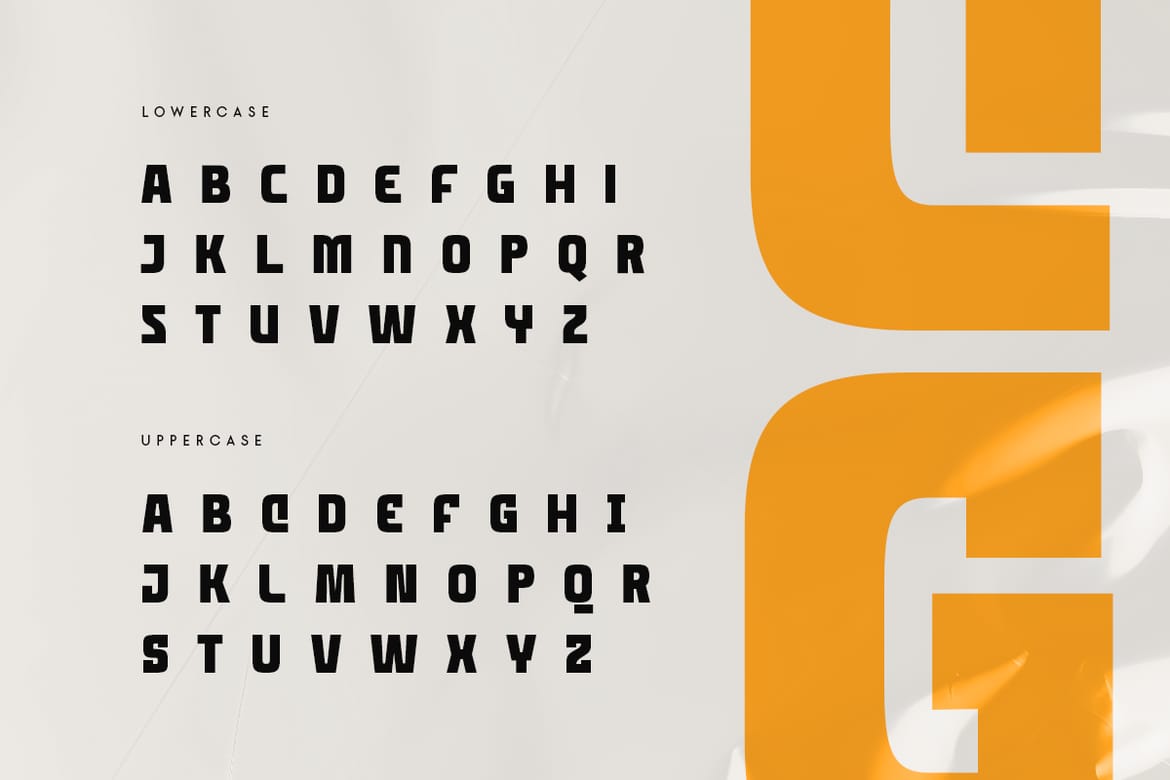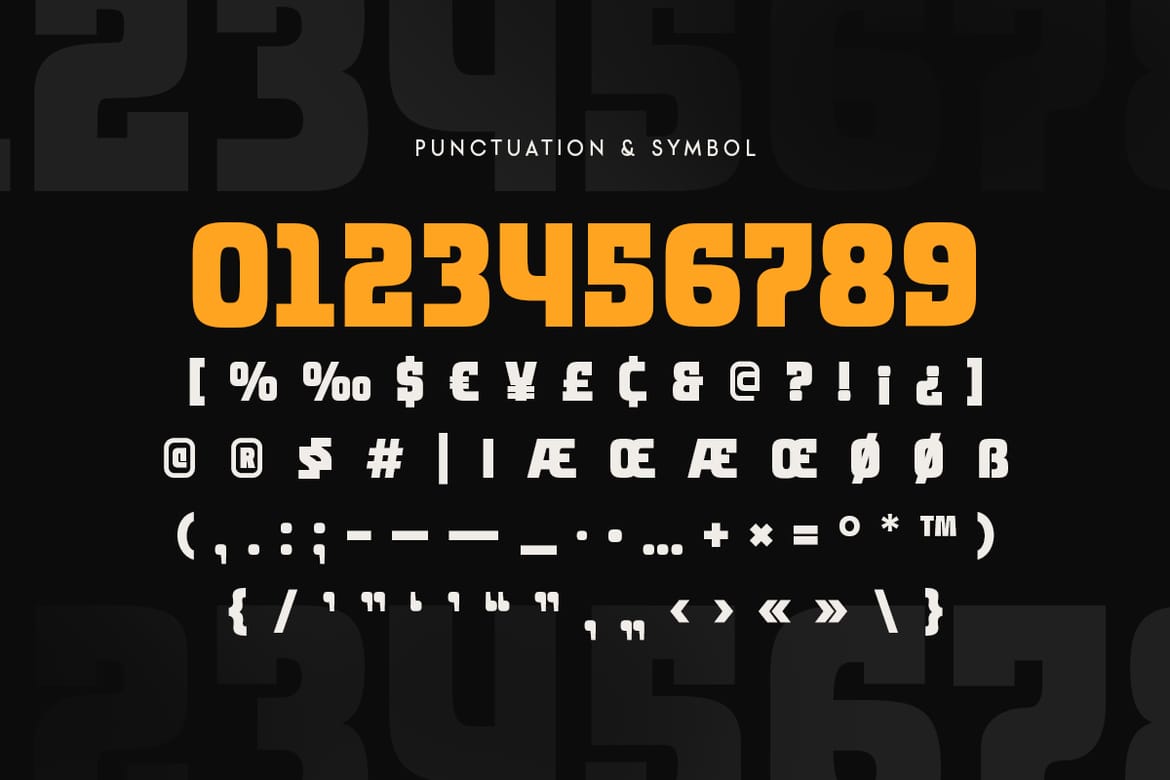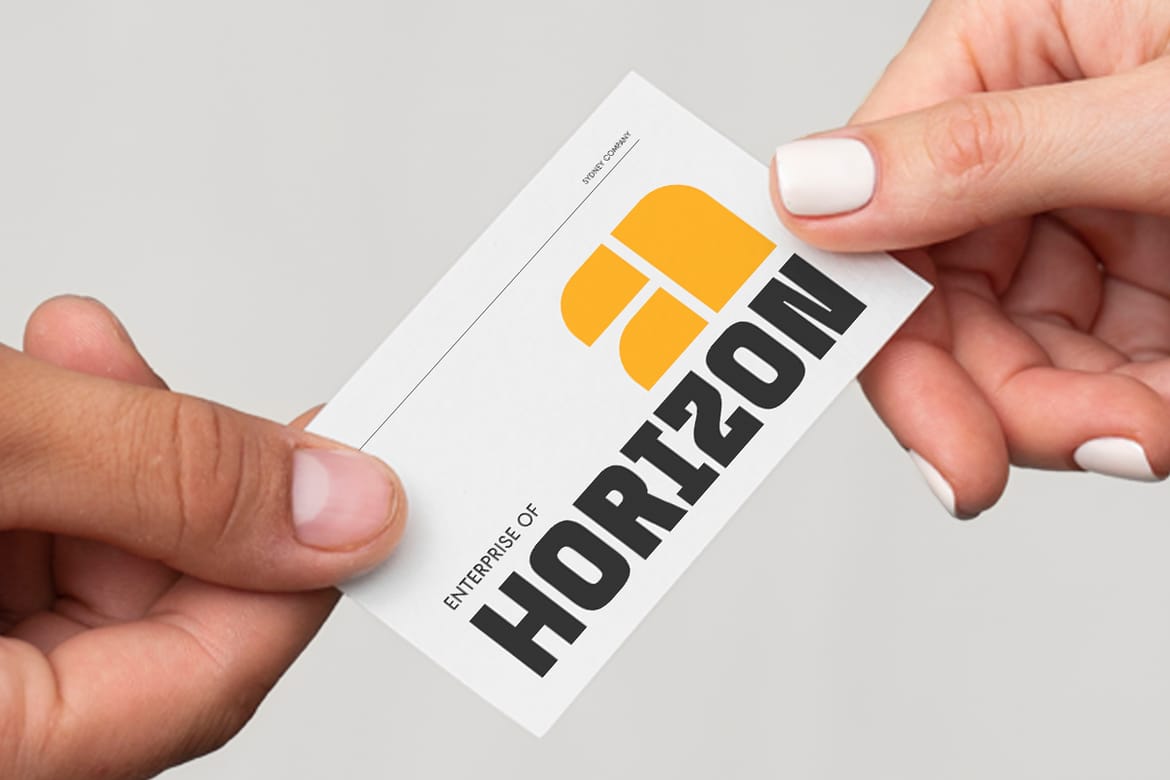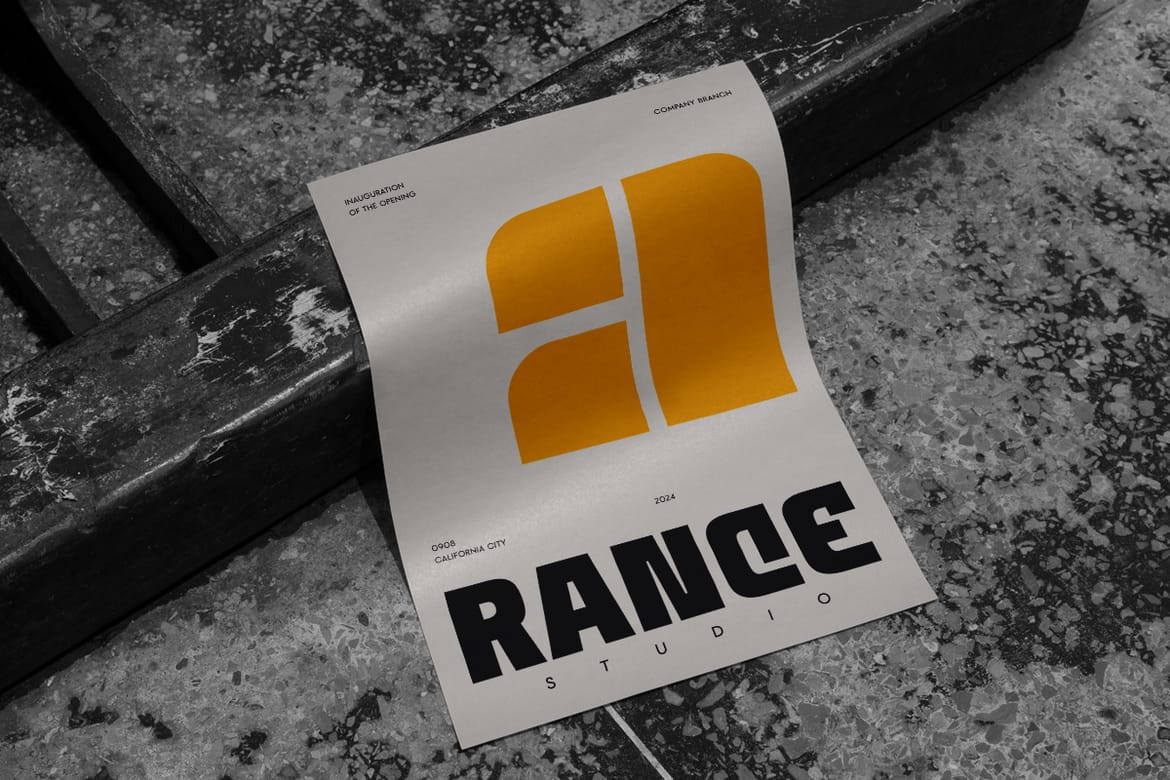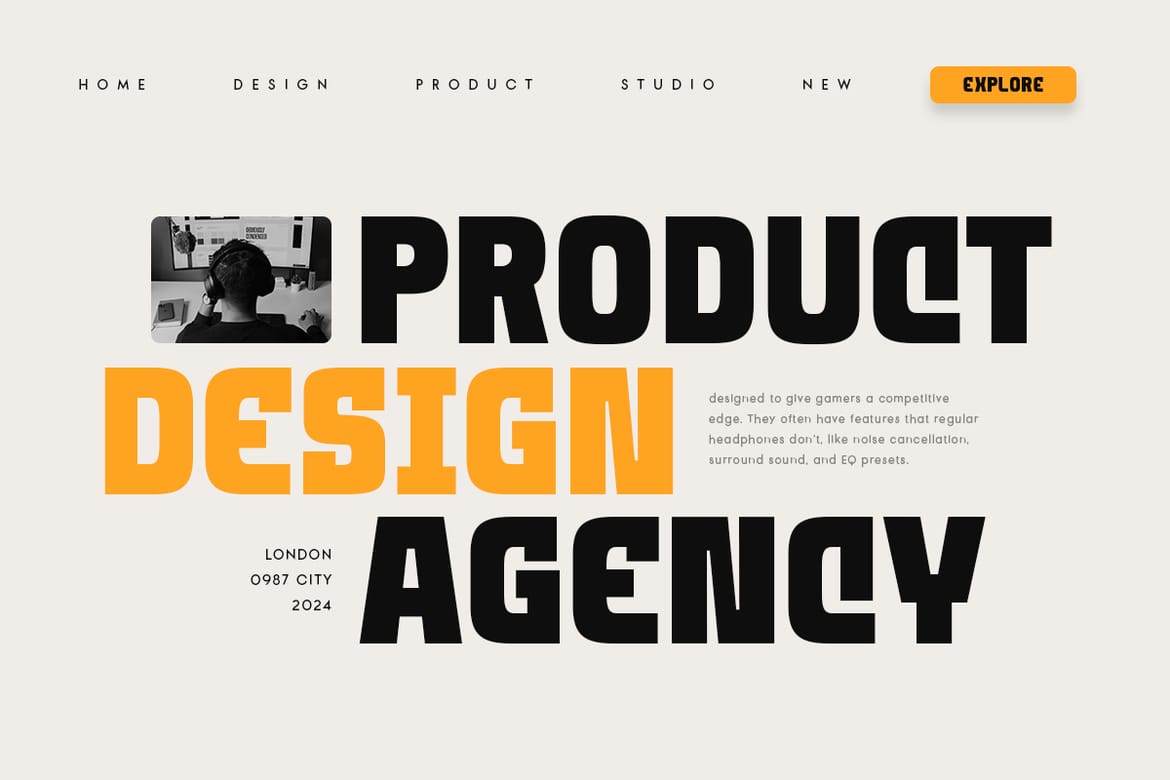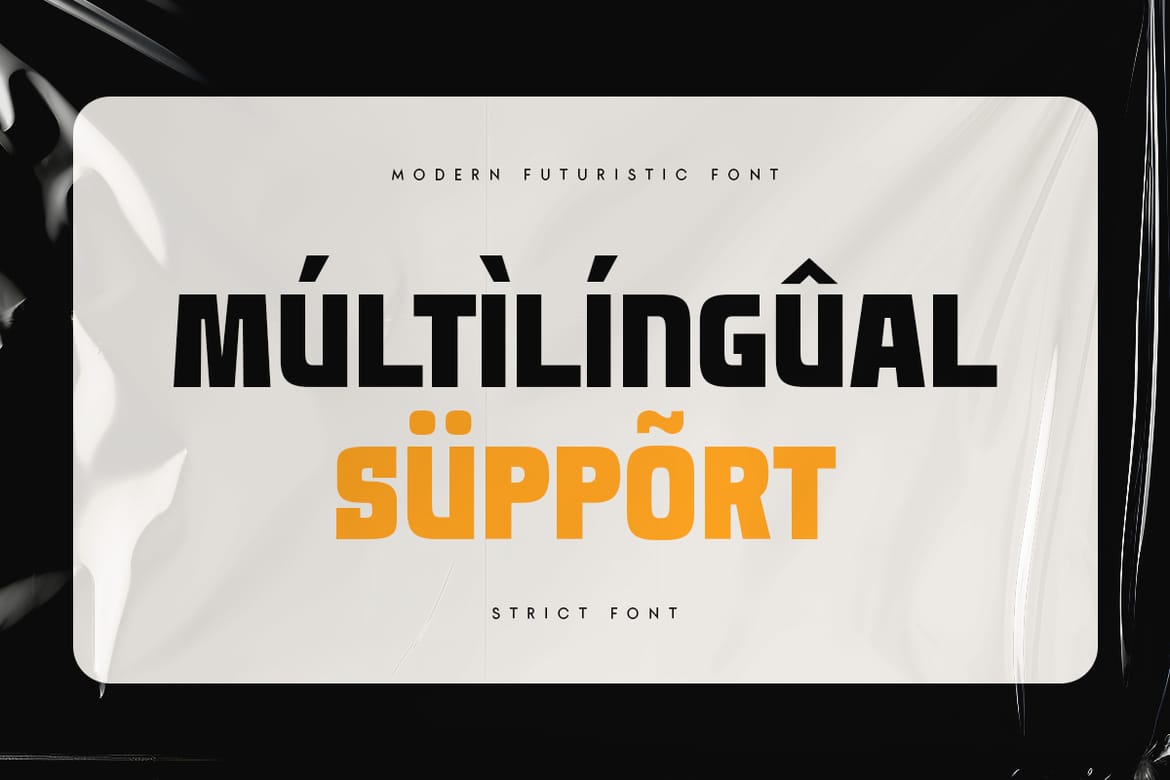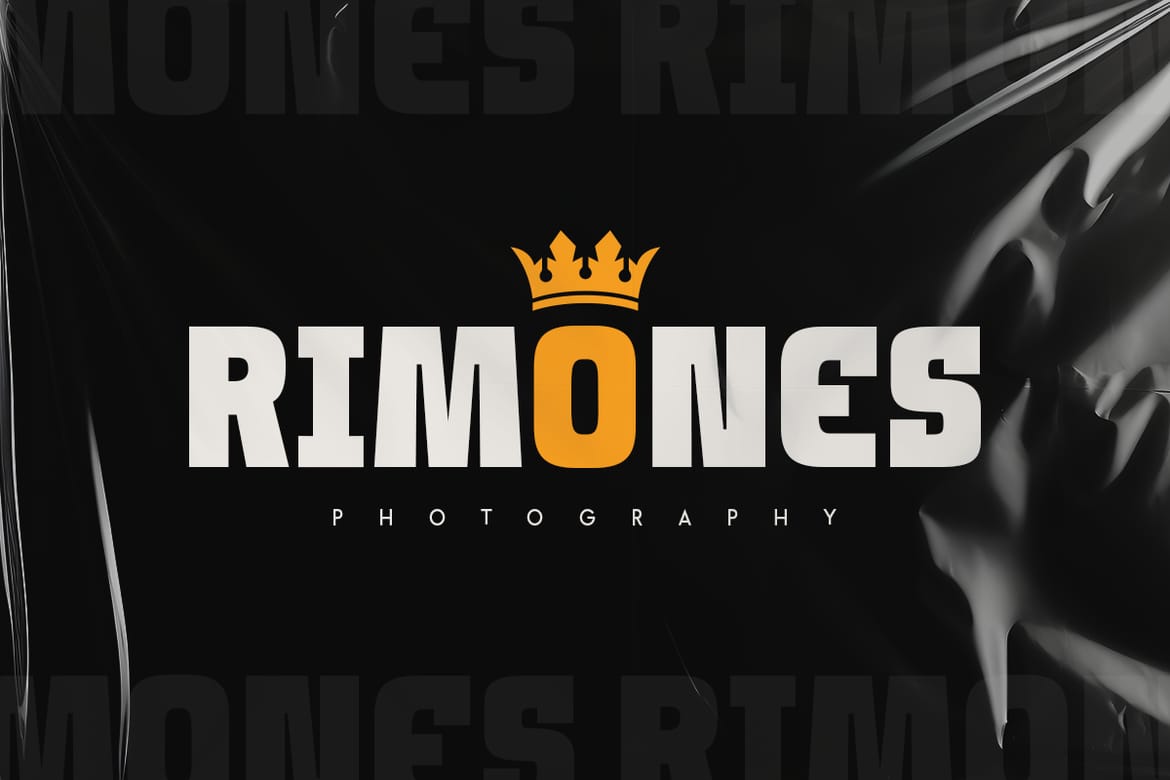
Strict is a Modern Neo Brutalism Sans Serif Font is a well-balanced modern font with a minimalist, unique, and iconic sans serif, font that you can combine to get any variations and unique shapes easily just in seconds. It is a sans serif font with minimalist style that perfect for branding projects, logo, poster designs, social media posts, advertisements, product packaging, product designs, label, photography, watermark, invitation, stationery, and any projects, it makes with a high level of legibility.
Character set A-Z
All-Caps Font, with Variation in Uppercase & Lowercase
Numerals & Punctuation
Accented Characters (West Europe)
- Neo brutalism minimalist sans-serif
- All-caps with upper and lowercase